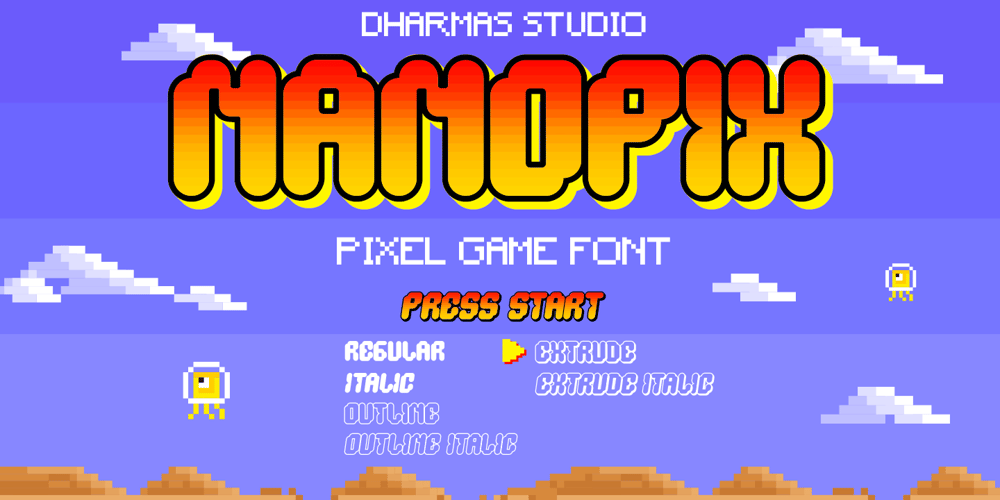
Nano Pix Font Family was designed by Ahmad Jamaludin and published by Ahmad Jamaludin. Nano Pix contains 6 styles and family package options. Embrace the nostalgic charm of pixelated games with its versatile 6 Styles: Regular, Italic, Outline, Extrude, Outline Italic, and Extrude Italic. Whether you’re crafting captivating logos, designing captivating posters, NANO PIX is your ultimate toolkit.Features: Nano Pix Main File Has 6 Variable: Regular, Italic, Outline, Extrude, Outline Italic, and Extrude Italic Multilingual Support Instructions (Access special characters, even in Cricut Design) Simple Installations Enjoy Designing!Dharmas Studio